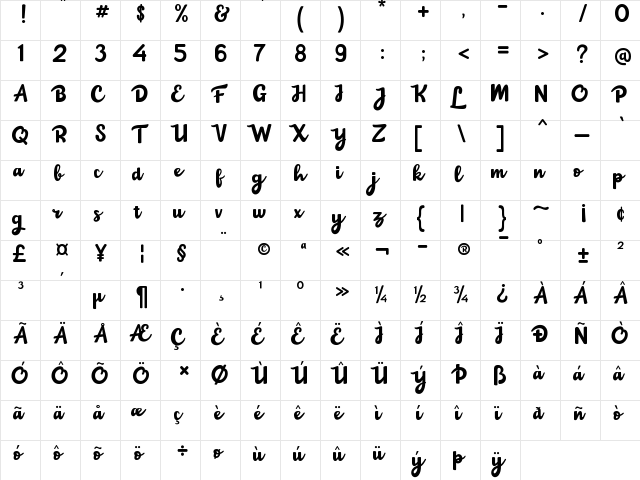
Choko Milky Regular
Design Context for Choko Milky Typeface
Choko Milky is a composed and adaptable typeface that performs quietly and consistently across a wide range of design contexts.